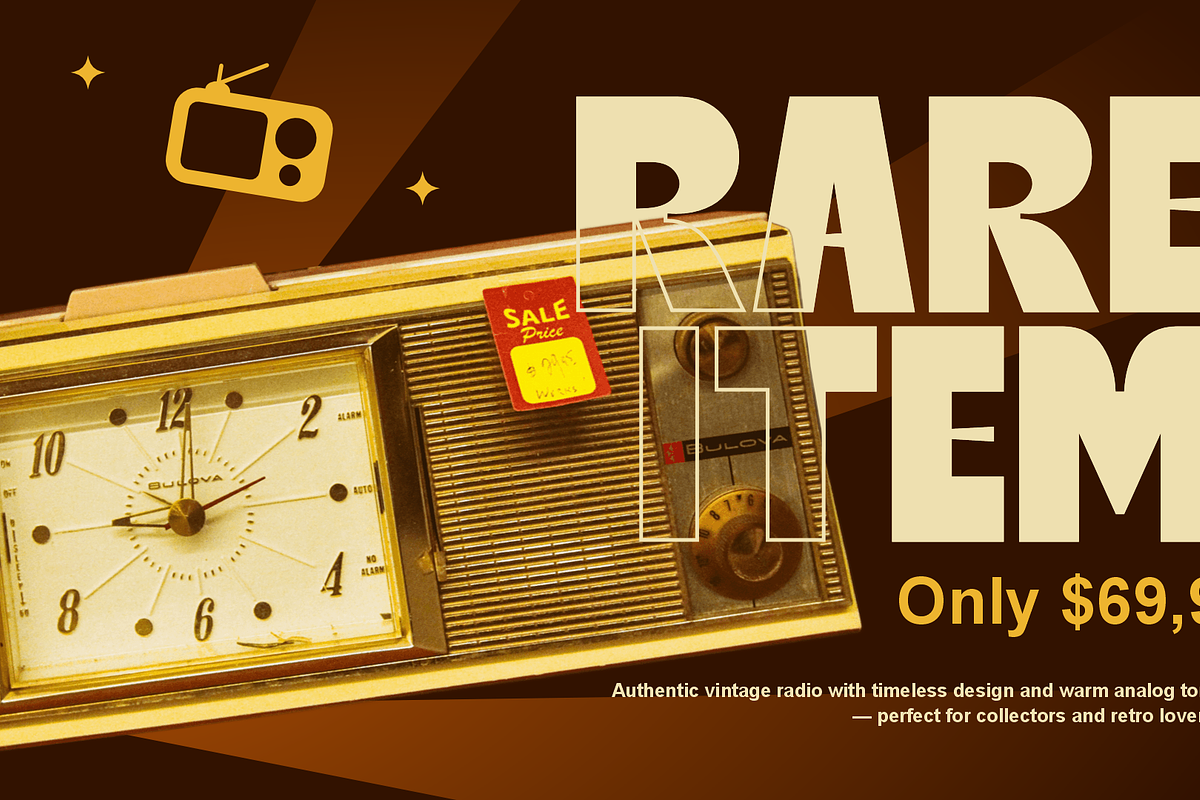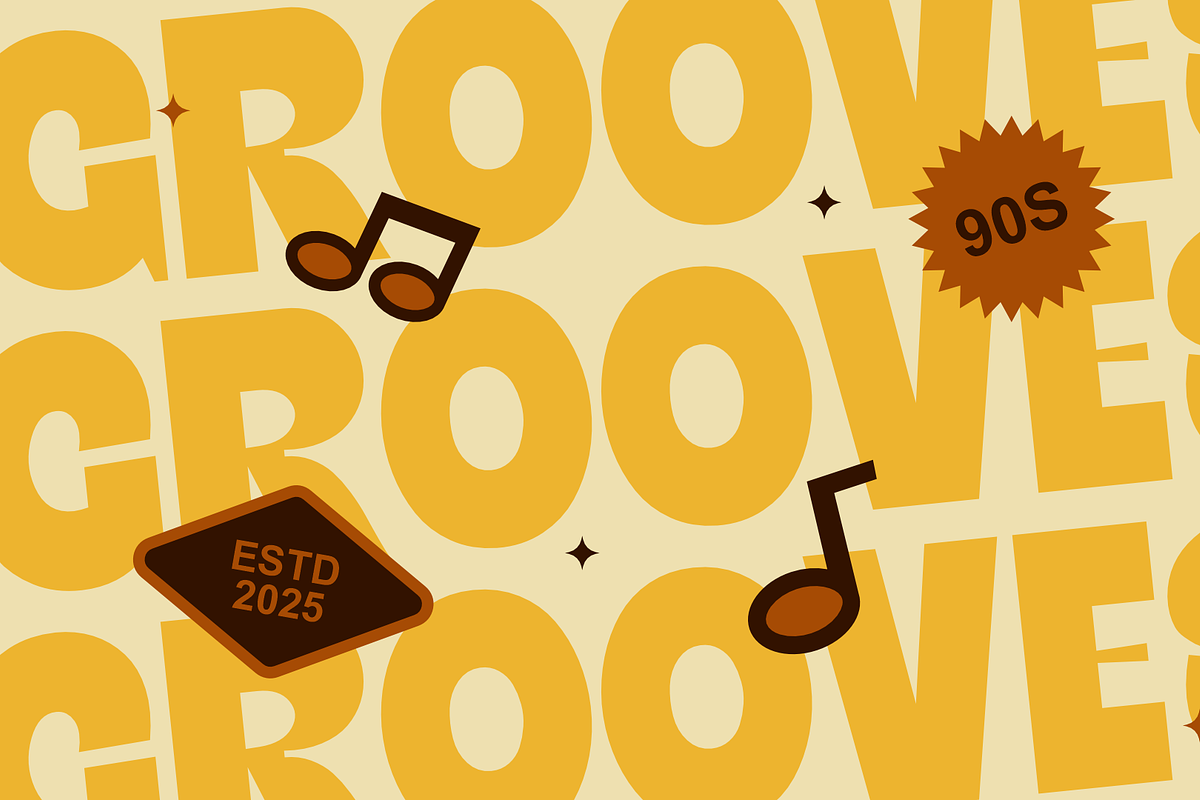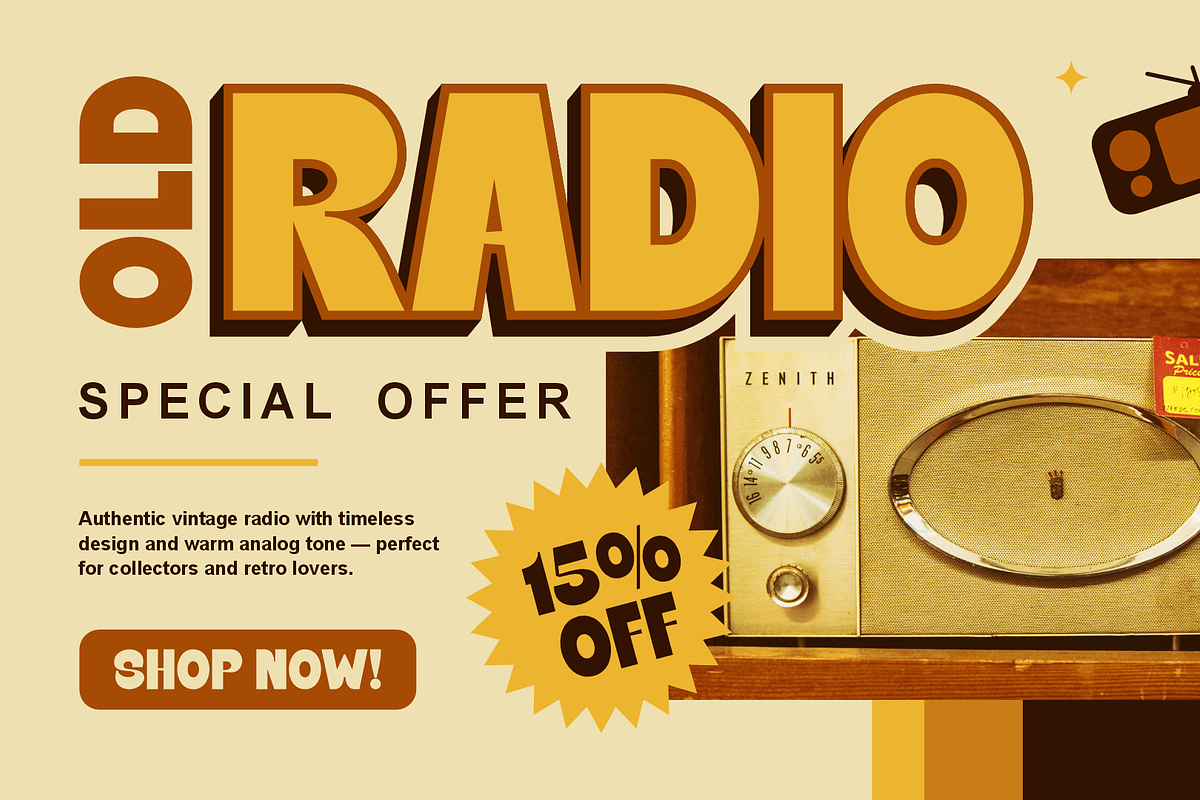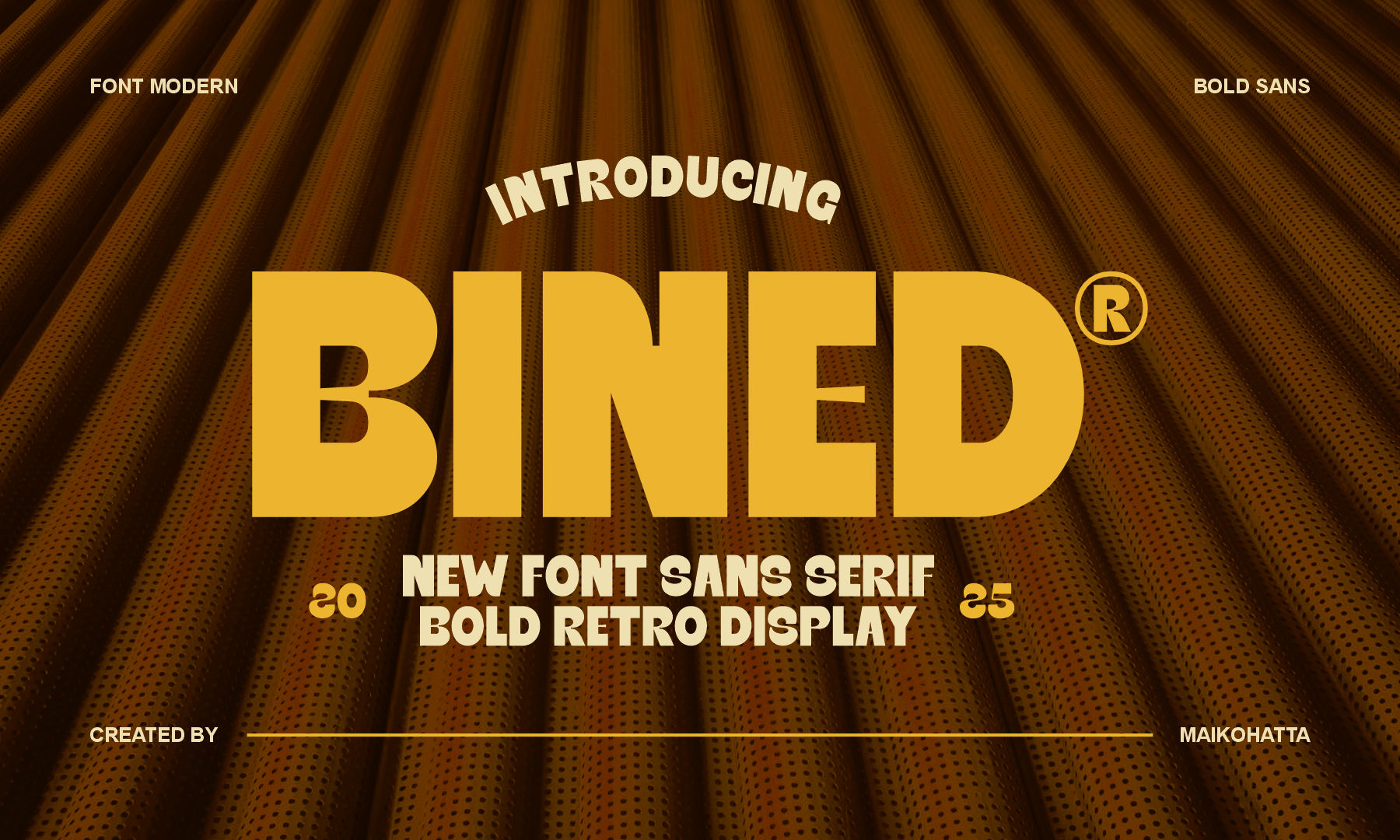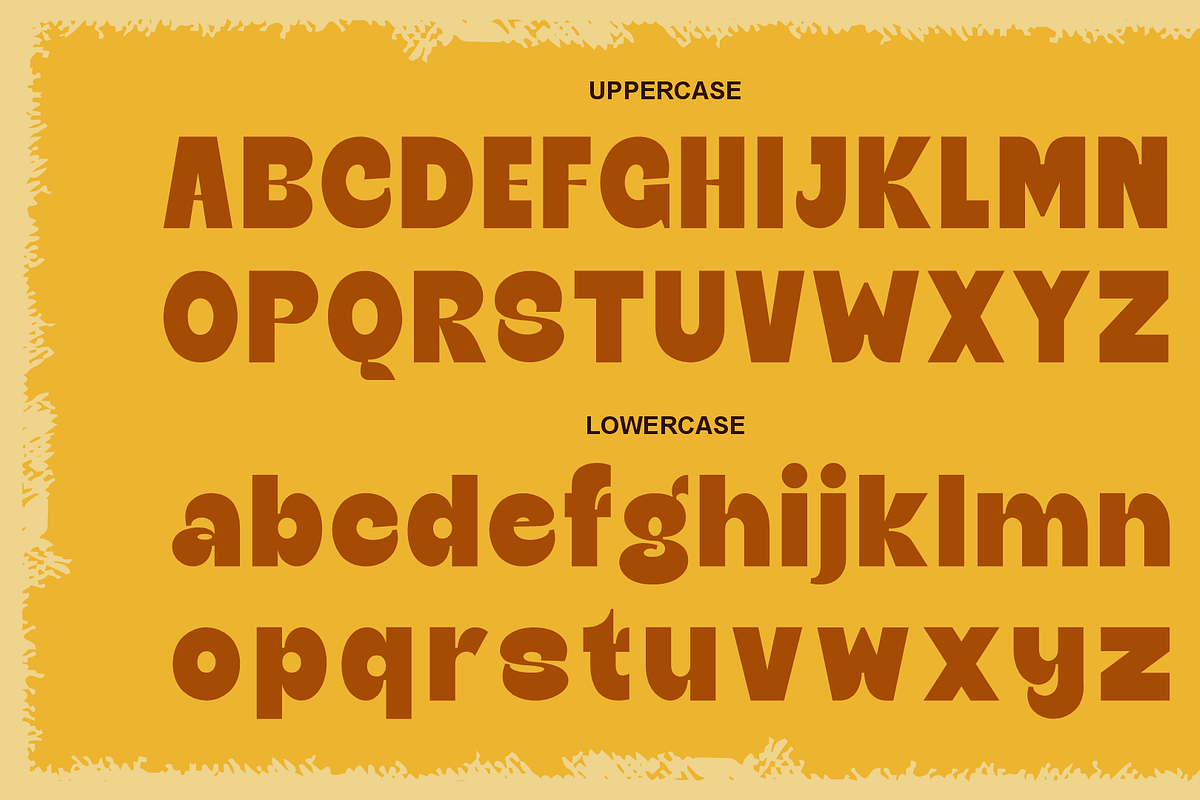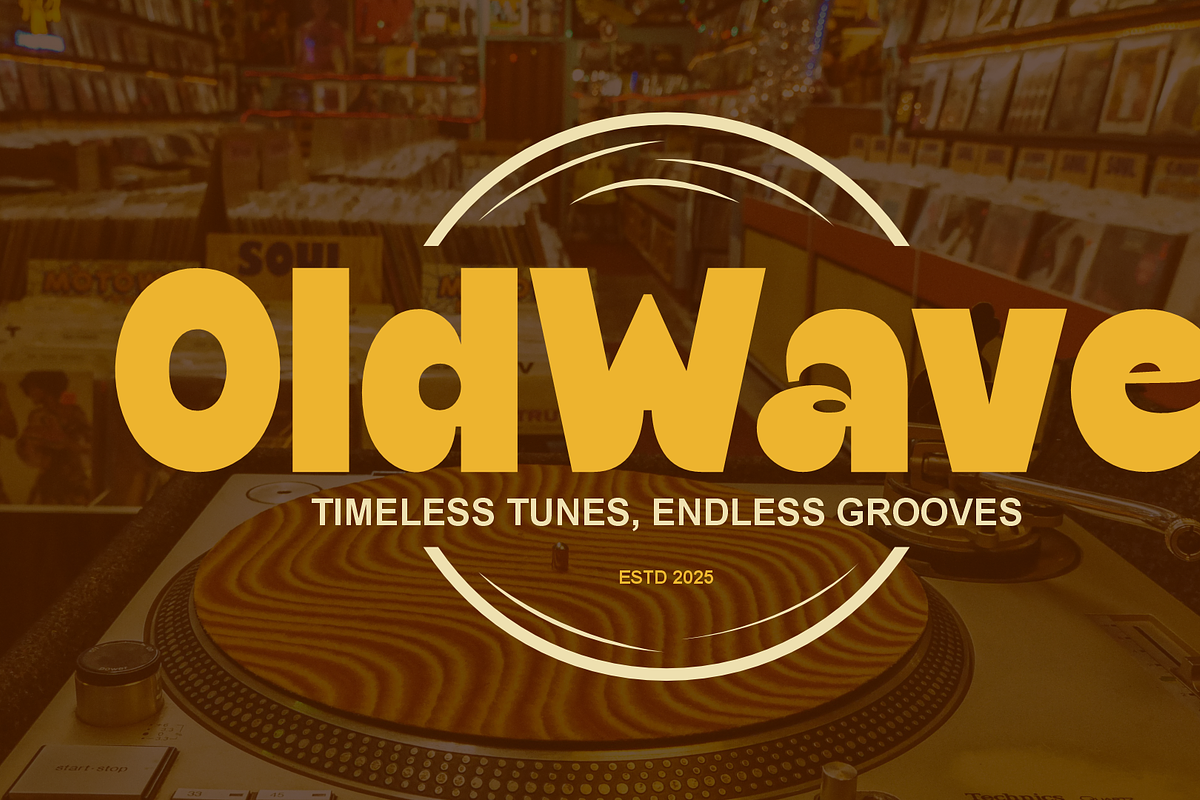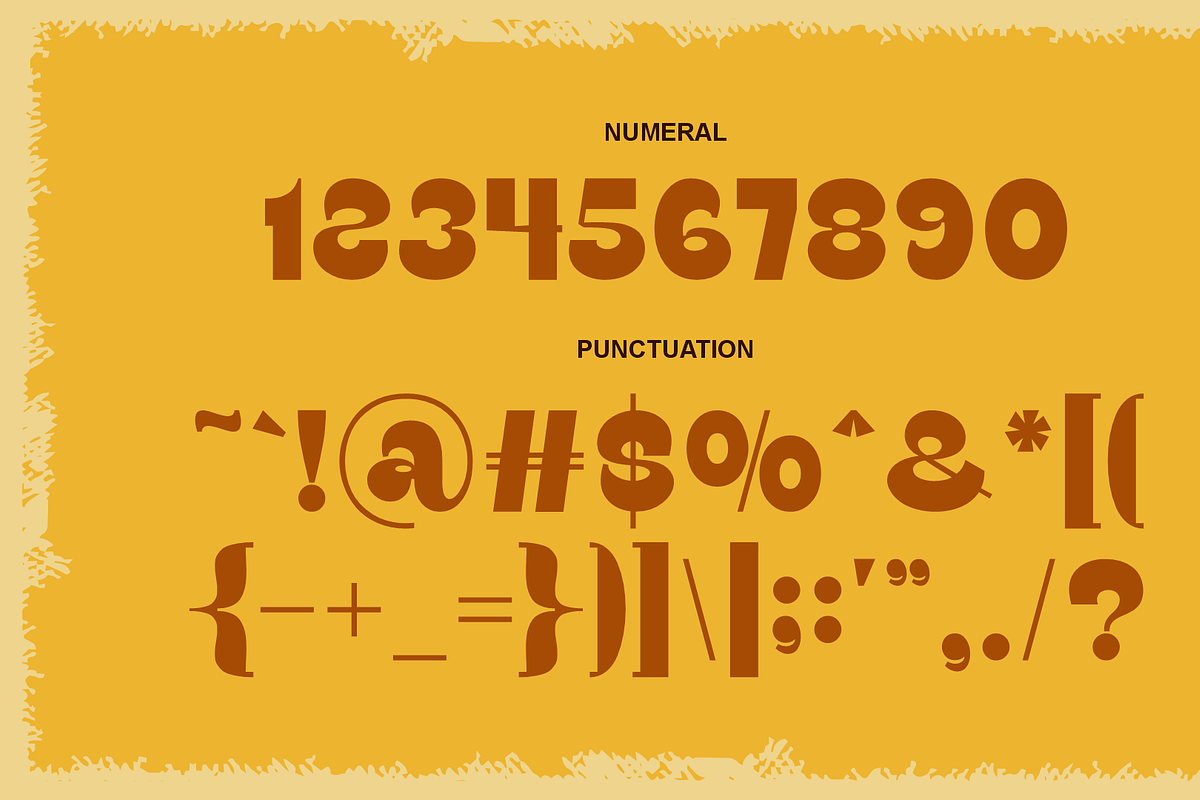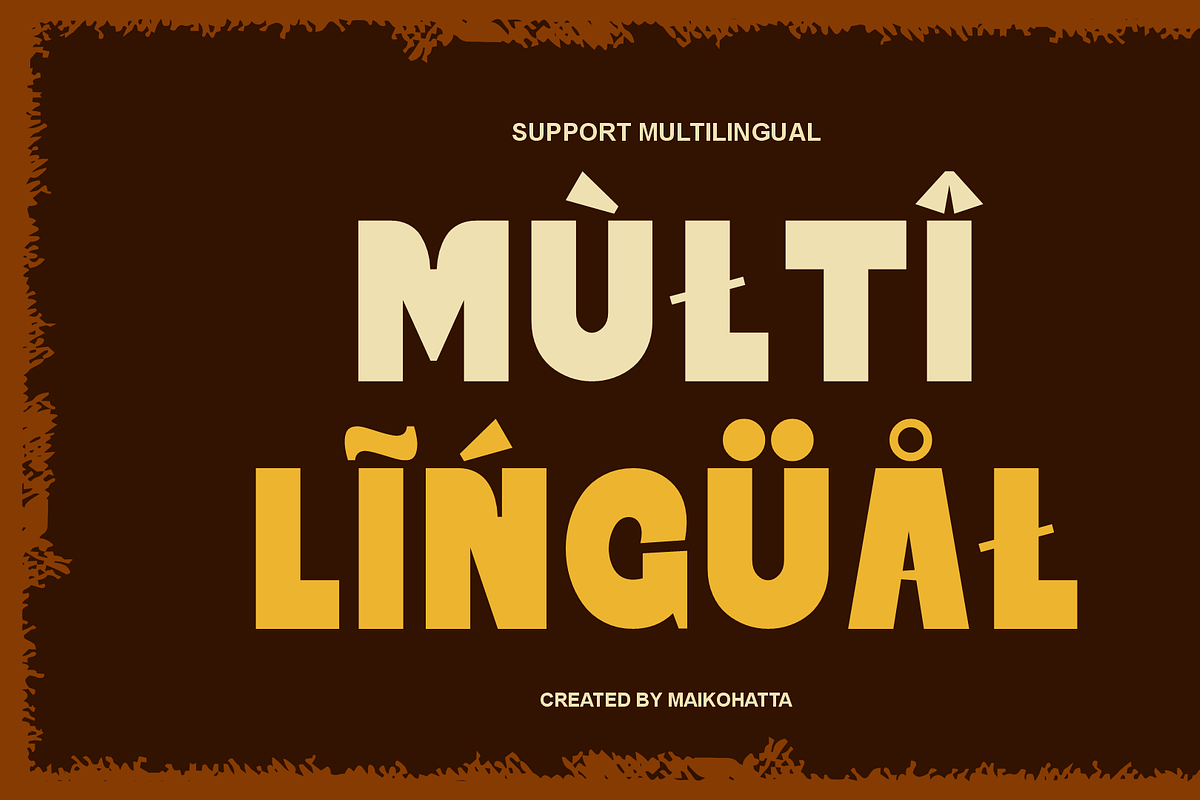
Bined – Bold Retro Sans Serif Font
Bined is a modern sans serif typeface with a bold retro aesthetic, combining vintage charm and contemporary strength. Its thick, geometric letterforms make it perfect for impactful headlines, logos, posters, and branding that demand attention. Designed with clean curves and strong visual balance, Bined delivers a nostalgic yet fresh look suitable for both digital and print projects.
Whether you’re crafting retro-inspired designs or bold modern visuals, Bined adds character and confidence to your typography.